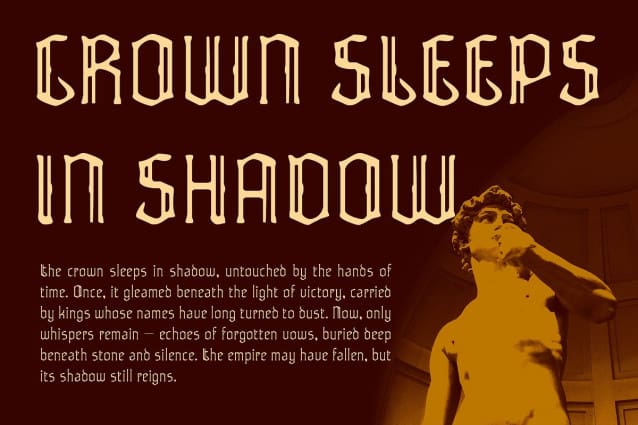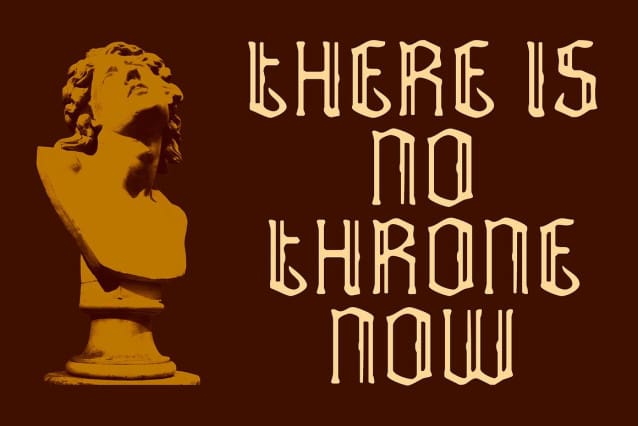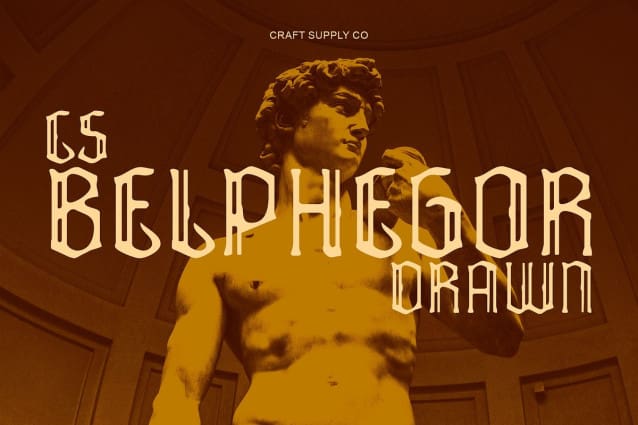
CS Belphegor Drawn Font
CS Belphegor Drawn Font-This is a gothic display font that commands attention through its sharp, decorative strokes and bold, traditional structure. Its strong presence and intricate forms evoke the spirit of medieval lettering, giving it a sense of depth and historical gravitas.
Hand-Drawn Texture for Authentic Character The drawn texture adds a handcrafted dimension, softening its sharp edges with artistic imperfection. This subtle handmade quality gives the font an organic flow, making it feel both timeless and alive perfect for projects that merge the old-world charm with a creative modern touch.
Mystical and Dramatic Appeal With its gothic roots and expressive drawn details, this font brings a mysterious and dramatic atmosphere to any design. It captures a sense of ancient elegance and dark allure, ideal for themes that balance beauty with intensity.
Perfect for Book Covers and Dramatic Branding Designed for impact, this font excels in mysterious book covers, historical branding, manuscripts, or dramatic posters. Its striking balance of classic form and hand-drawn artistry ensures your design feels both captivating and unforgettable.